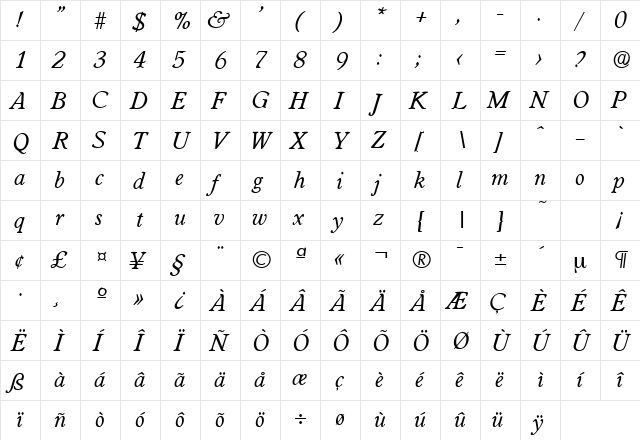
Worcester-Serial DB RegularItalic Font Preview
Worcester-Serial DB RegularItalic
Design Context for Worcester-Serial DB Typeface
Worcester-Serial DB takes a measured approach to typography — its balanced proportions and neutral character make it a reliable workhorse for both digital and print work. The dynamic lean of this cut emphasises speed and emphasis in any layout.